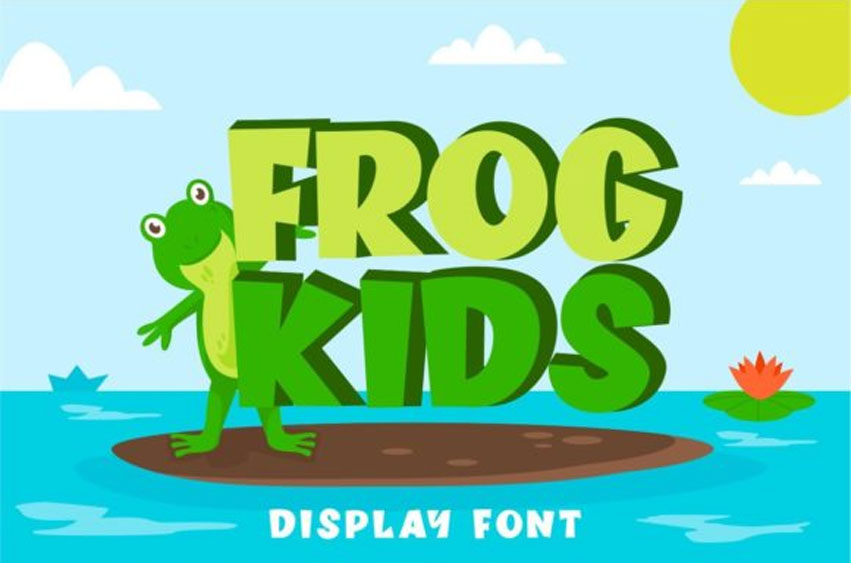
Frog Kids Font
Frog Kids Font is a cute, chunky lettered and fun display font.
Whether you use it for cartoon related designs, children games or just any creation that requires a lovely touch, this font will be an amazing choice.